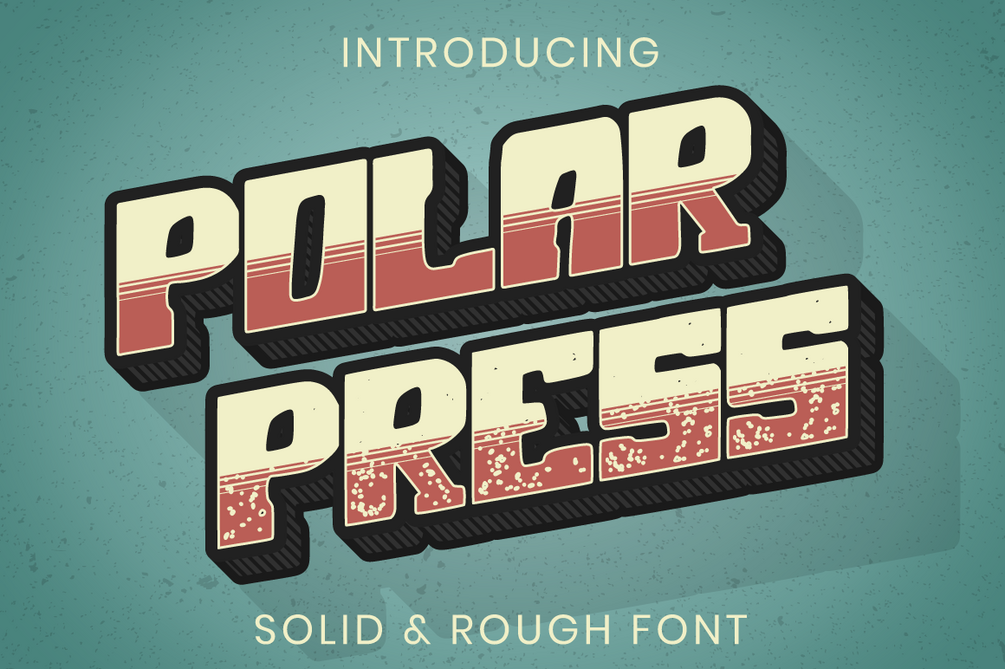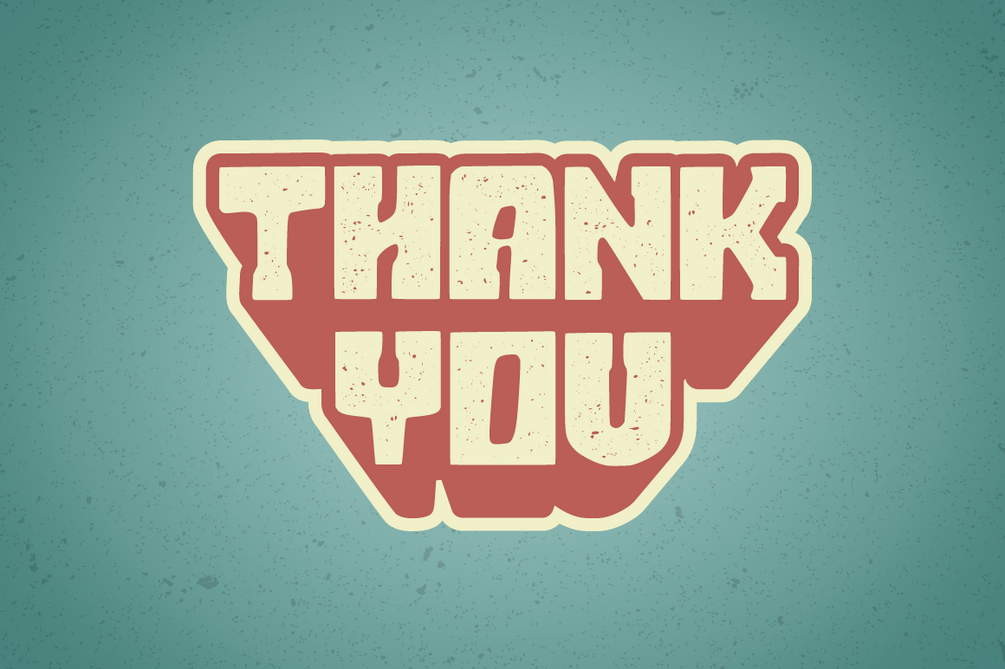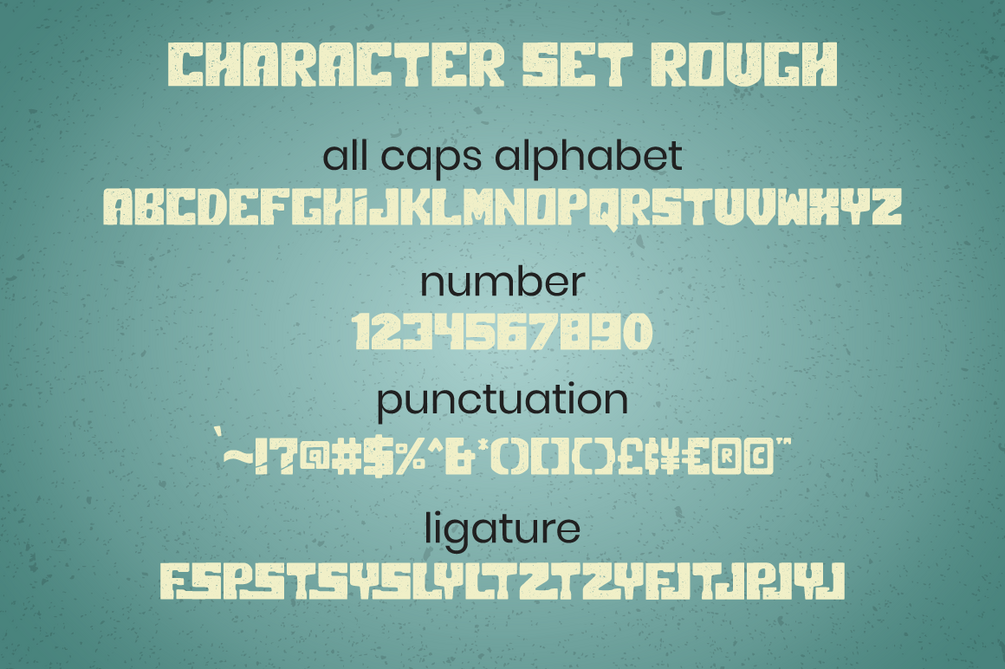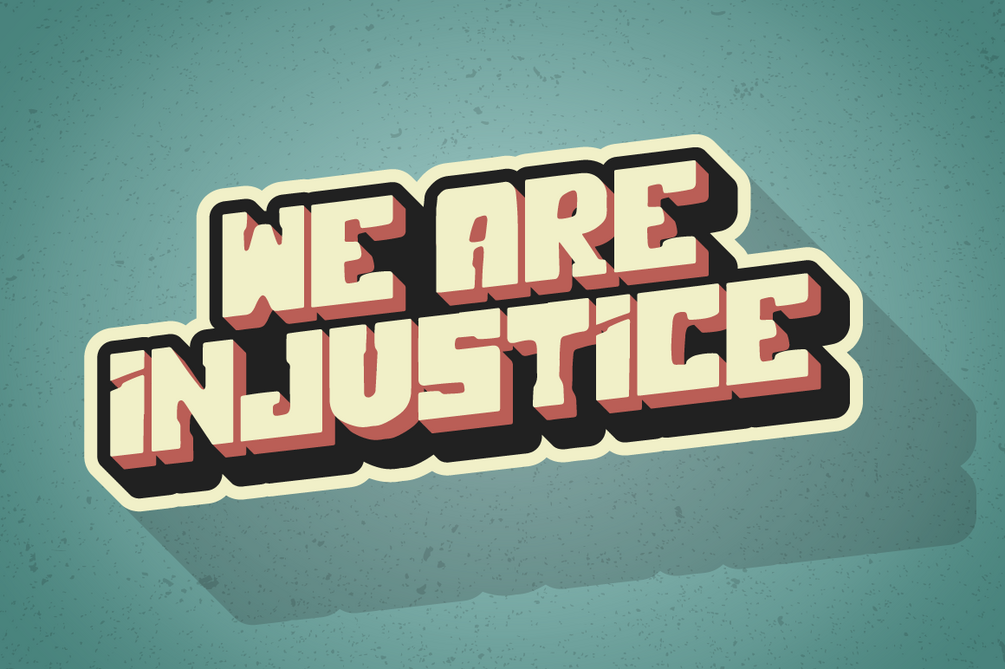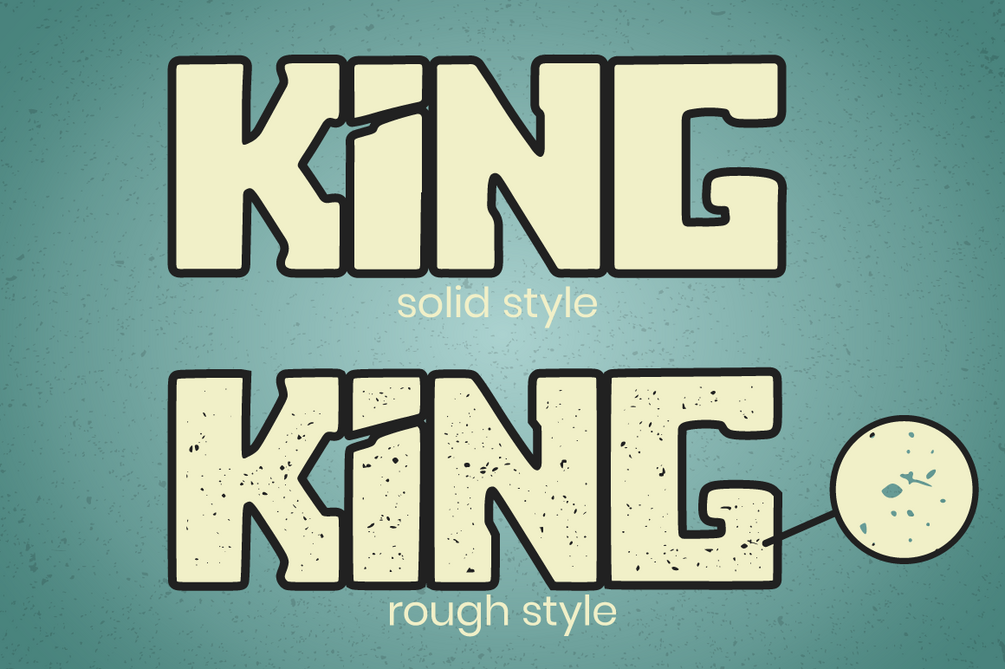
Polar Press - Display Font
Introducing Polar Press - Display Font
Polar Press is vintage all caps font with 2 styles clean & rough.
Polar press is a strong font, this font is perfect for branding, logo, invitation, stationery, social media post, product packaging, merchandise, blog design, game titles, retro style design, Book/Cover Title and more.
Features:
• Polar Press Regular
• Polar Press Display
• Uppercase
• Lowercase
• Numbers & Punctuation
• Ligatures
• Multilingual Support